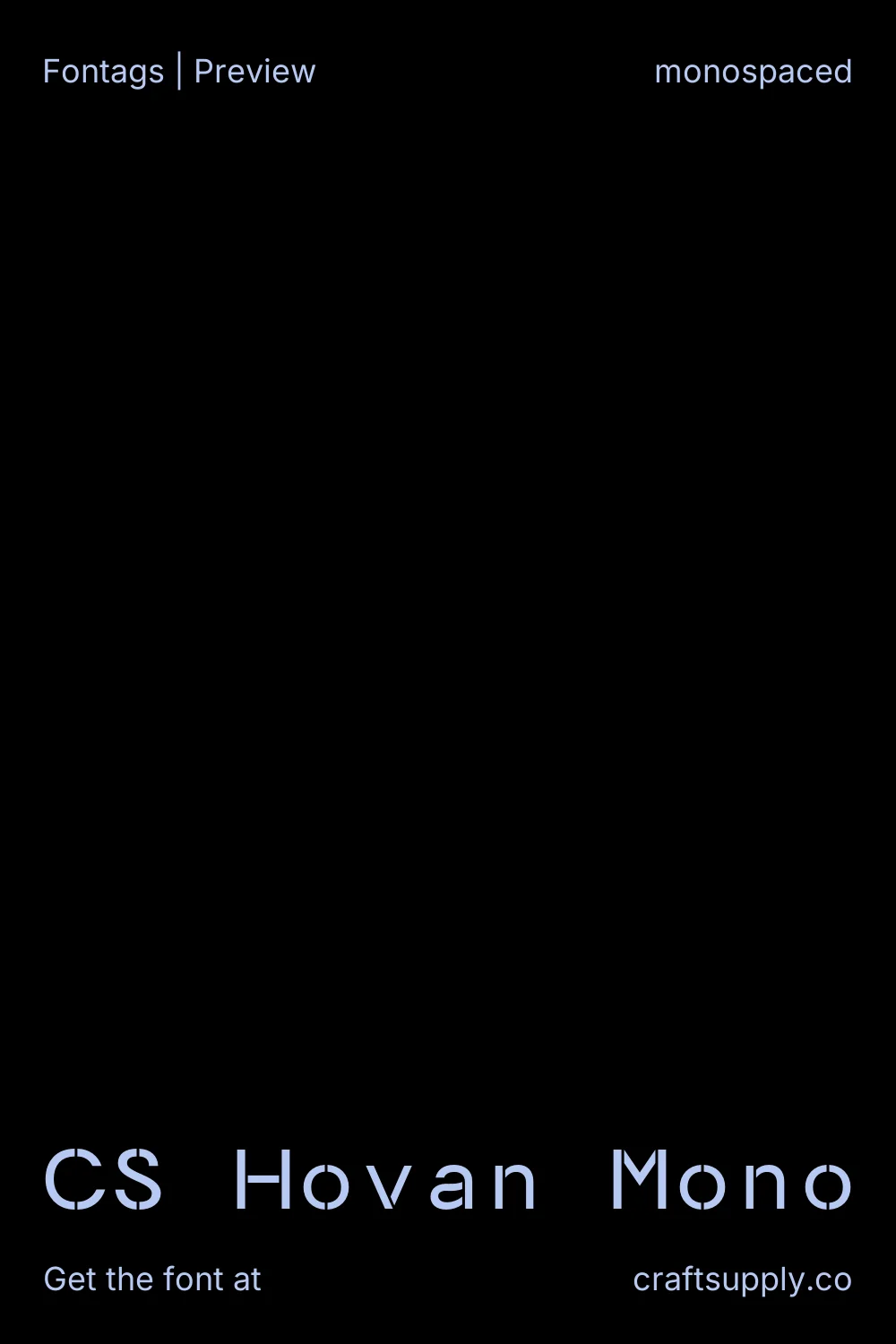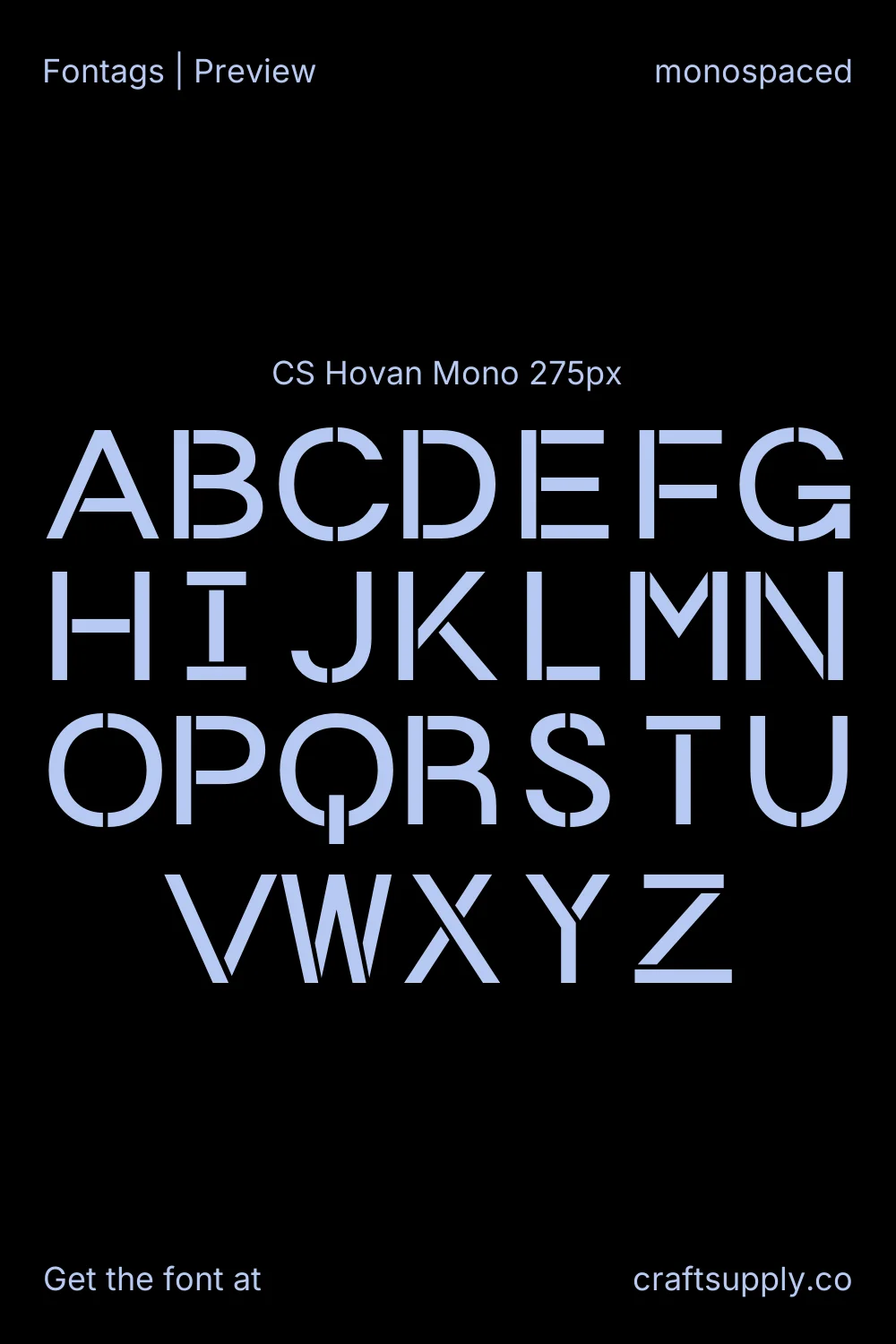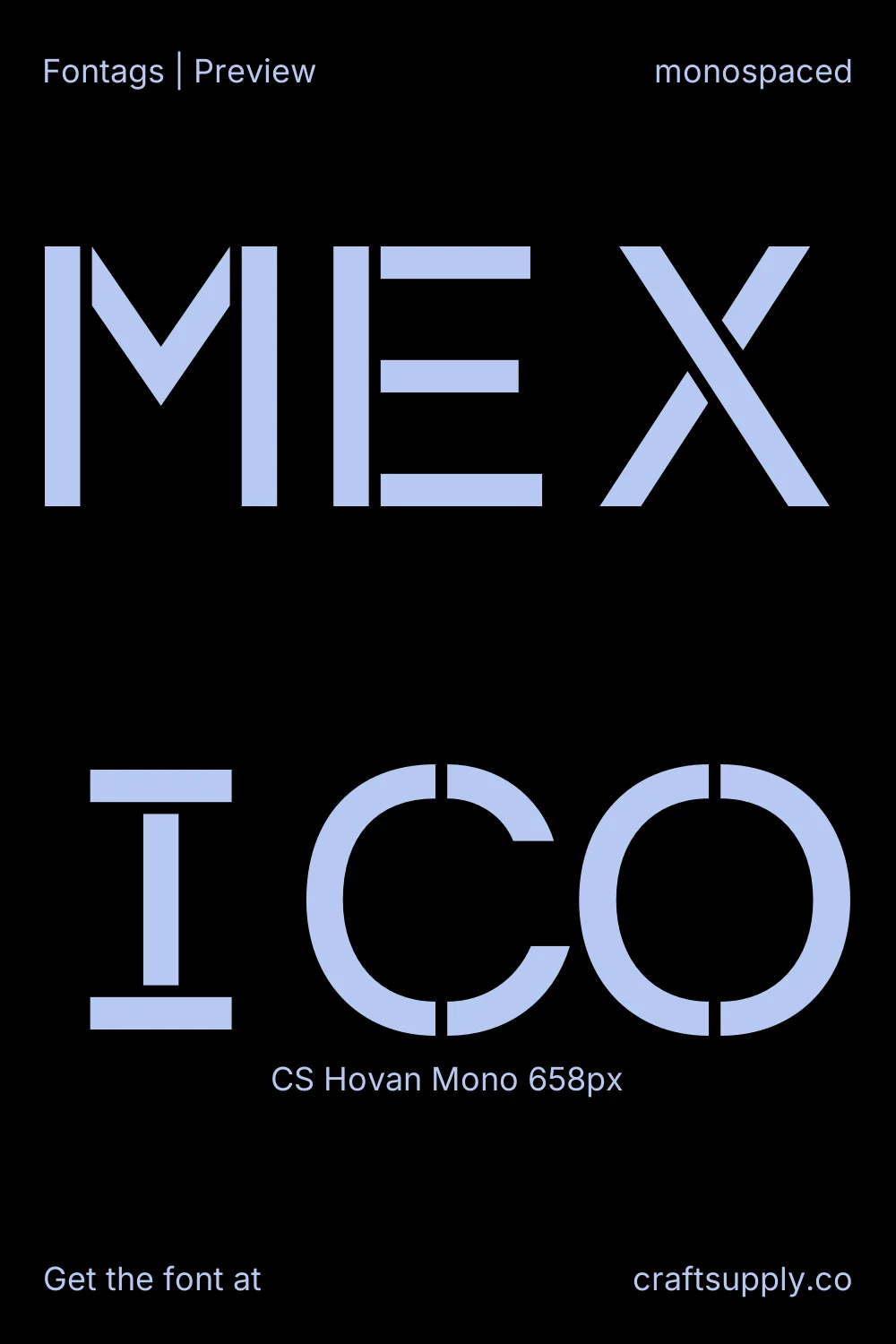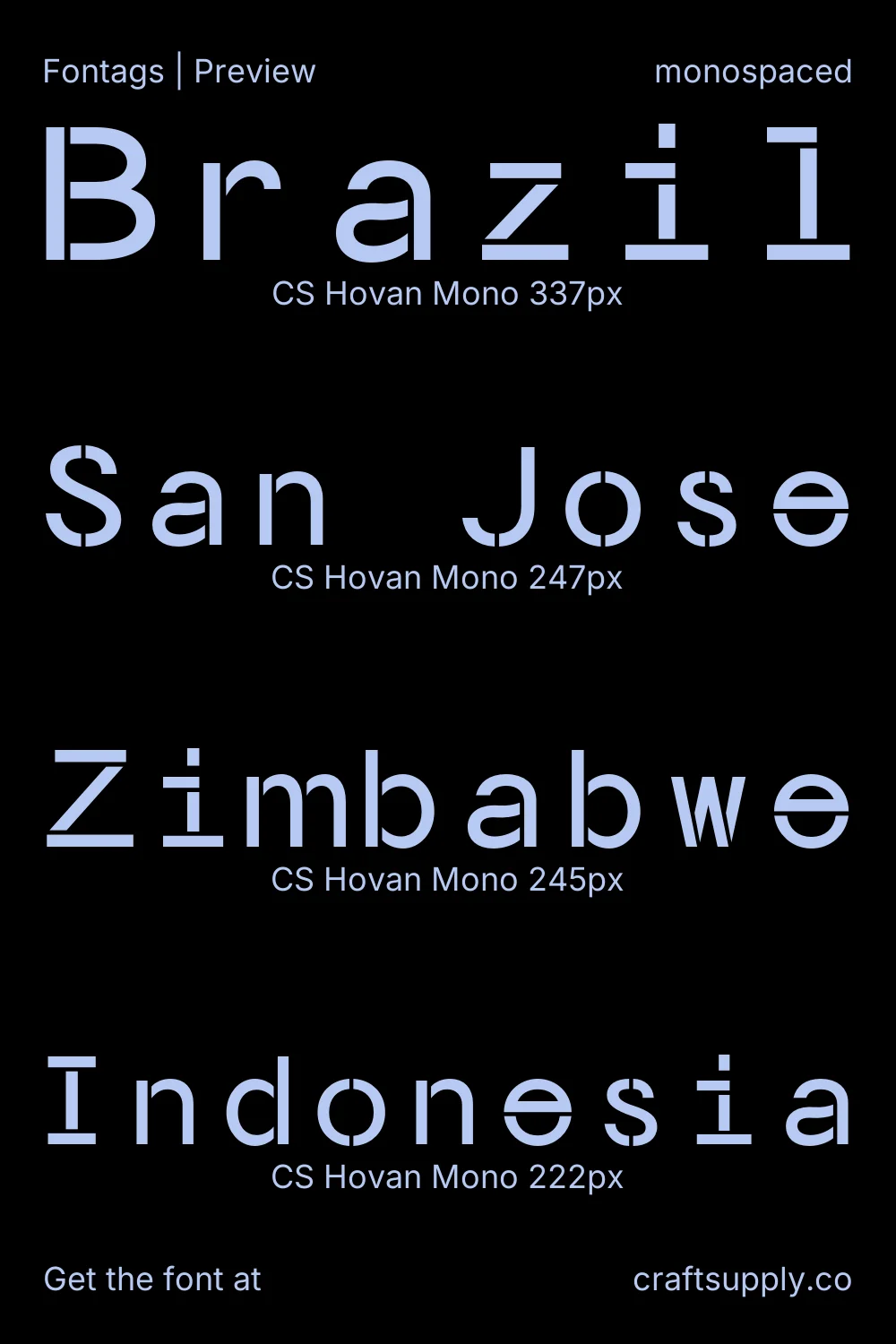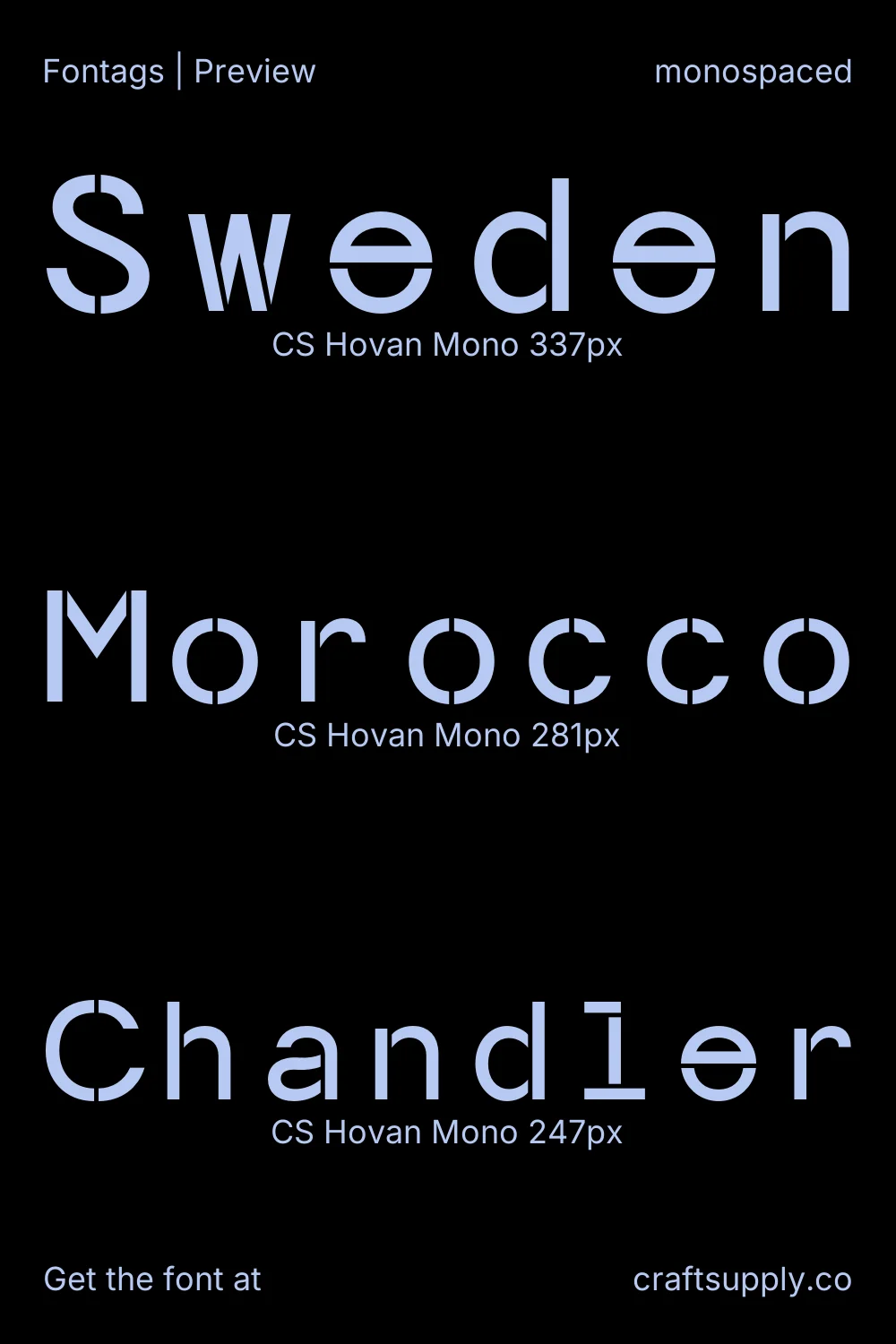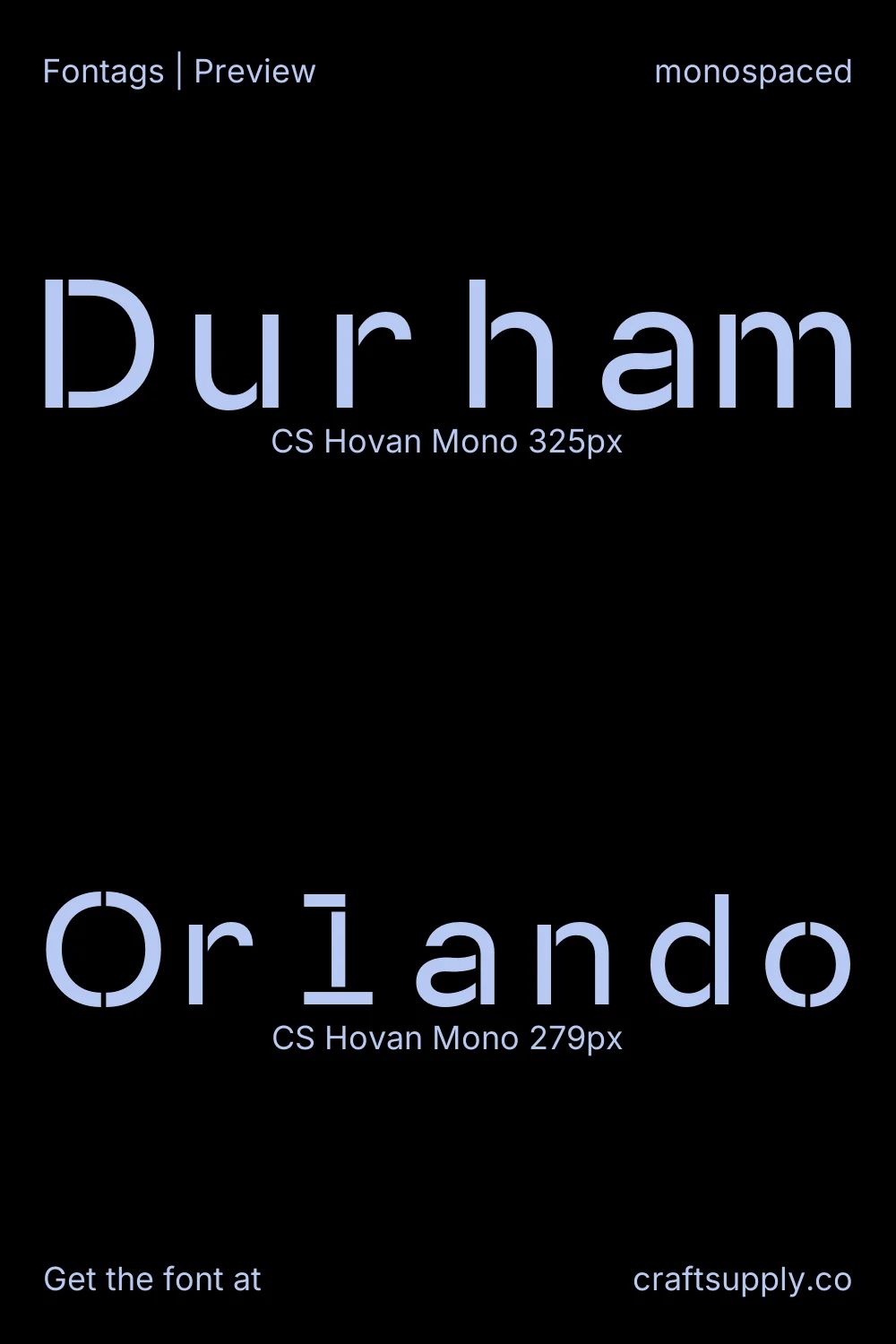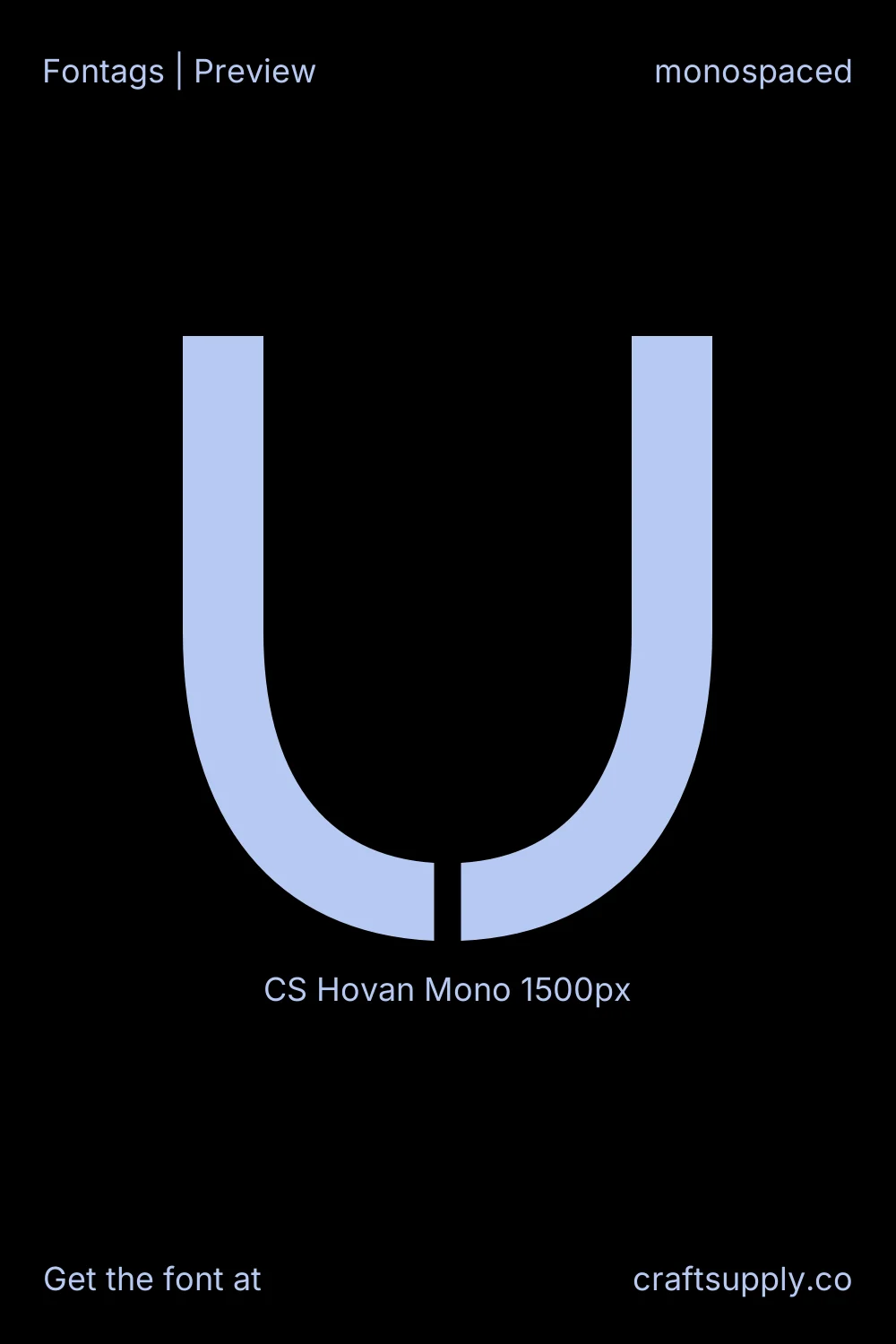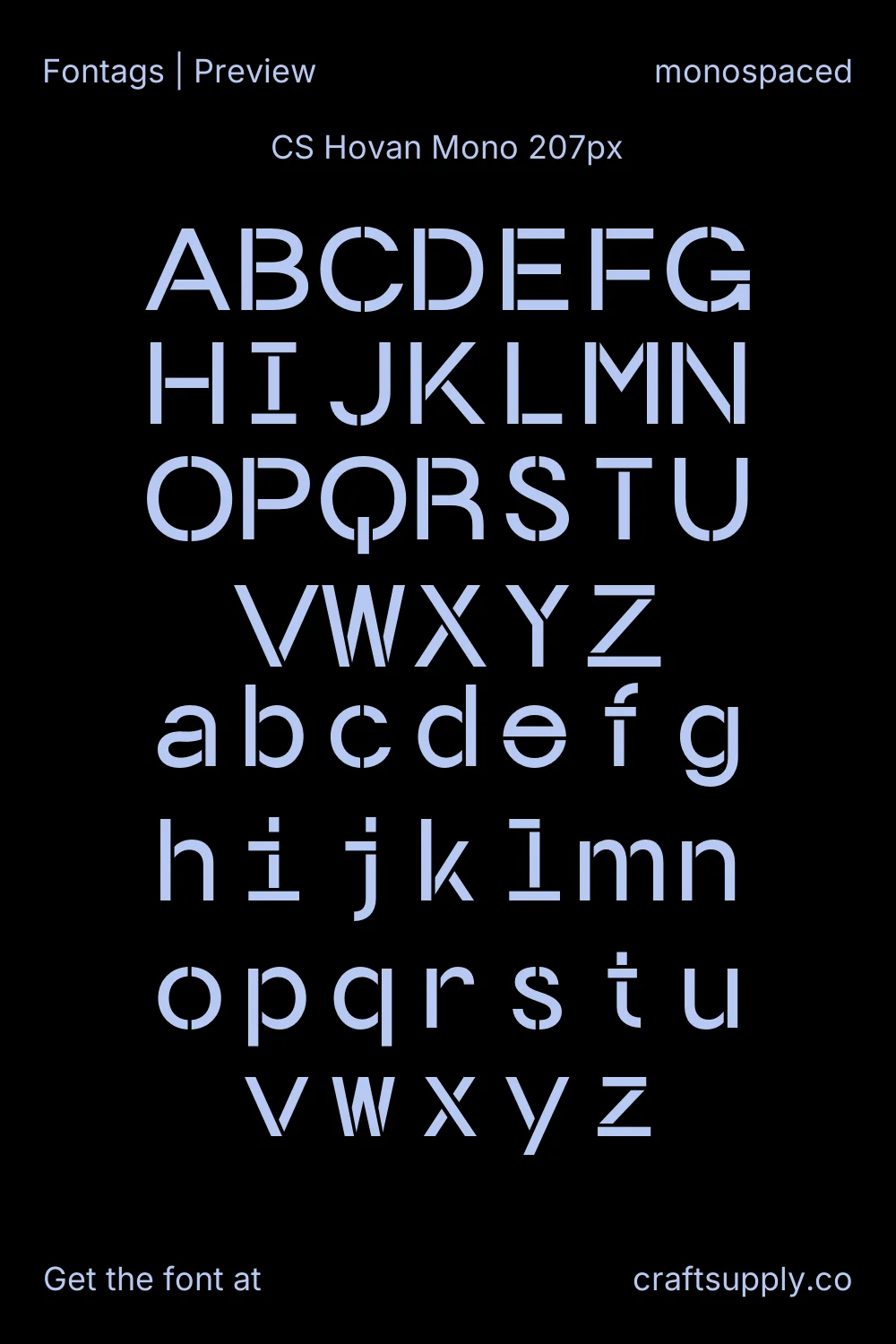
CS Hovan Mono
CS Hovan Mono is a monospaced sans-serif font with a stencil-inspired design that gives it a robust, industrial aesthetic. Its equal-width characters ensure clean alignment, making it ideal for coding, documentation, and tech branding. The combination of mechanical precision and rugged stencil cuts lends itself well to software interfaces, industrial design projects, and any application requiring a bold, technical look.